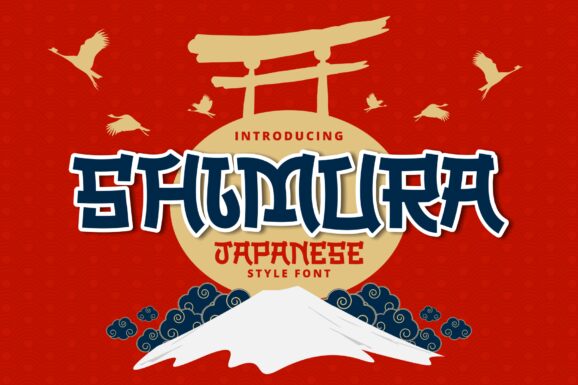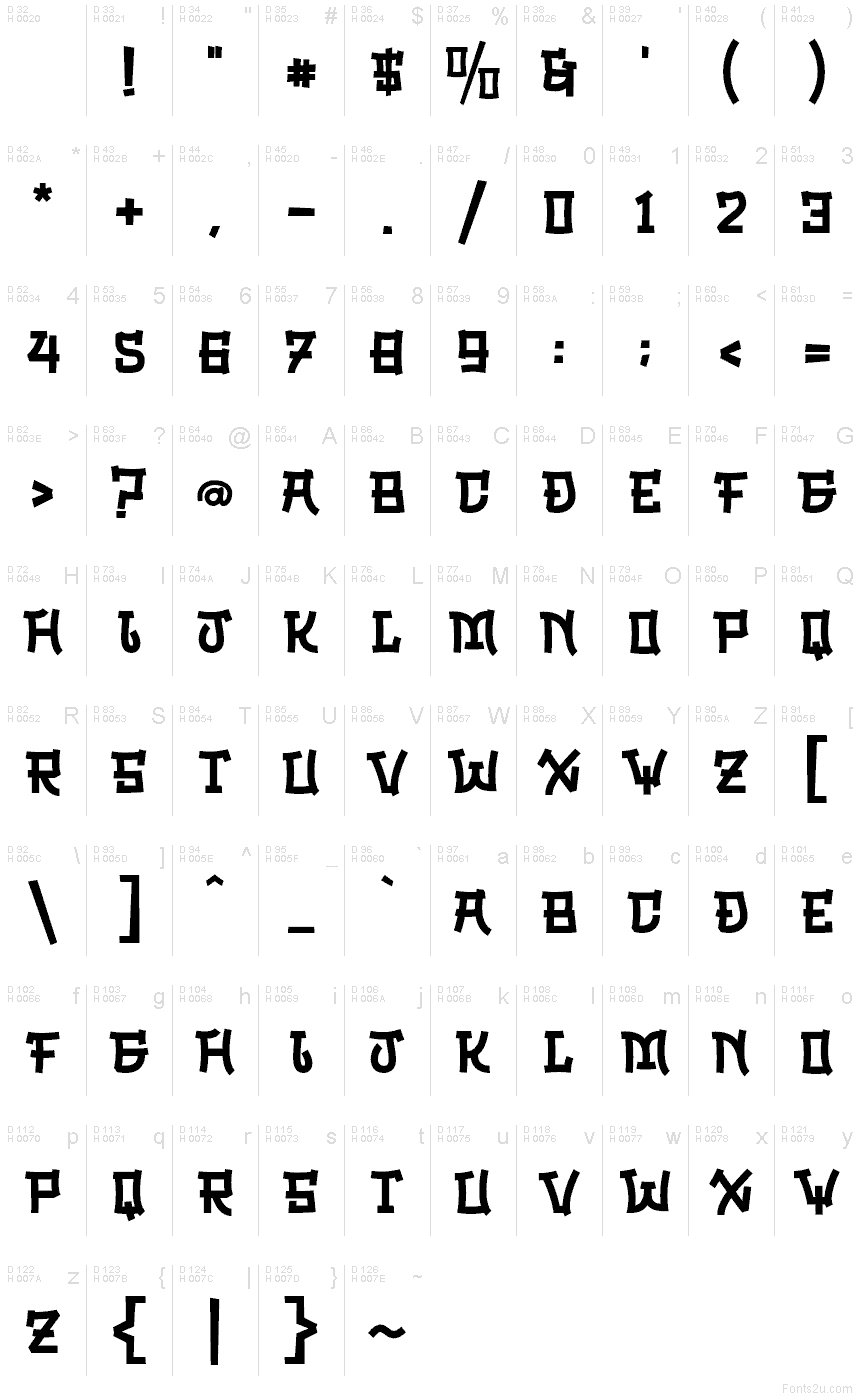
Shimura
Shimura font by Hendra Pratama is a free faux Japanese decorative typeface that hits that bold, cinematic “East-meets-West” vibe instantly. Heavy black strokes, squared counters, and those curling, brush-like endings give each letter the weight of ink laid down with intent. The rhythm is blocky yet fluid, so words feel sculpted rather than typed—great when you need a single line of text to carry the whole visual story.
Using Shimura, your titles snap into character for ramen bar branding, Asian fusion restaurant menus, food truck signage, martial-arts event posters, game or anime-inspired logos, and eye-catching YouTube covers. This free font works best in large sizes where its chunky, carved details can breathe; pair it with a clean, neutral sans serif for body copy so the stylized forms stay legible and commanding.